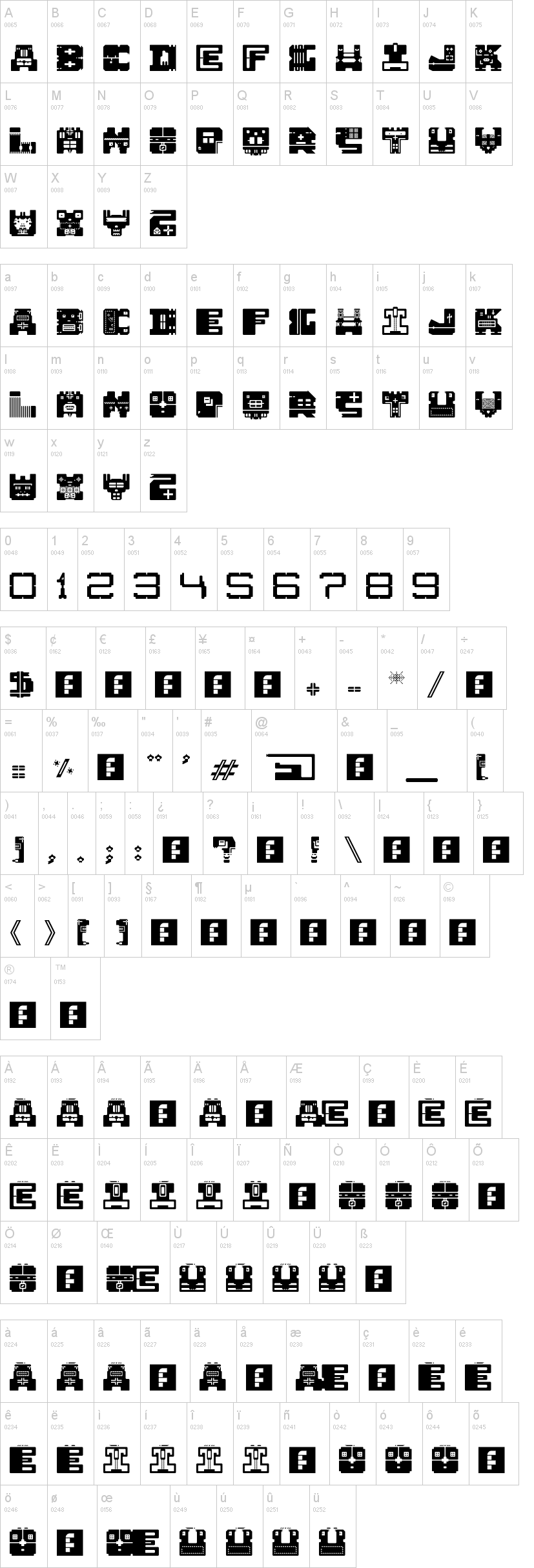
Note of the authorAFT1 Heterodoxa launches the Abneurone Fluid Types fondry, specialized in unusual, innovative fonts created at the borderline between Art and Design. As the glyphs have generally many intricate inner parts, the Abneurone Fluid Types catalogue will give the best results in big sizes